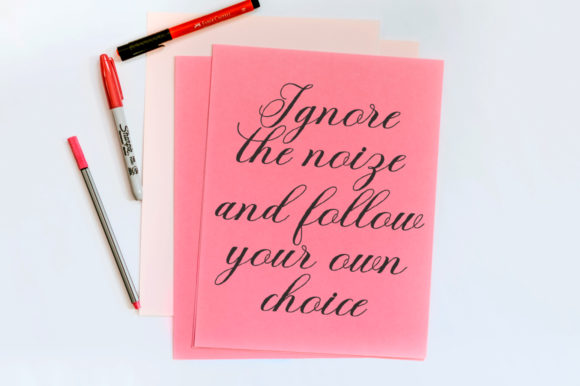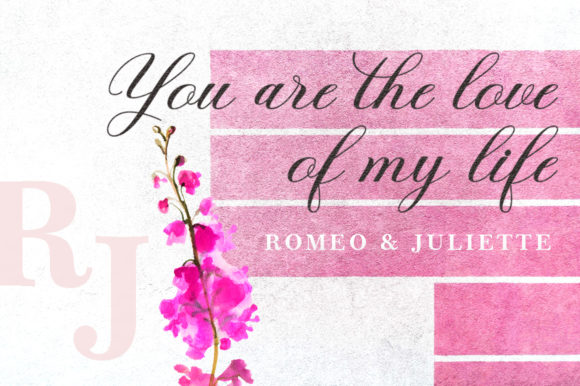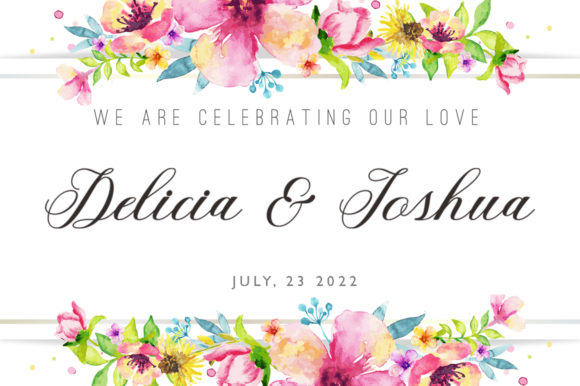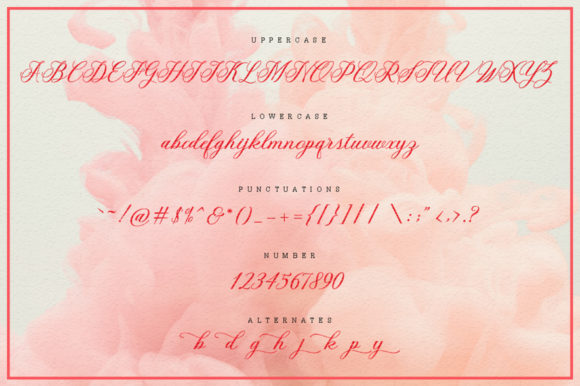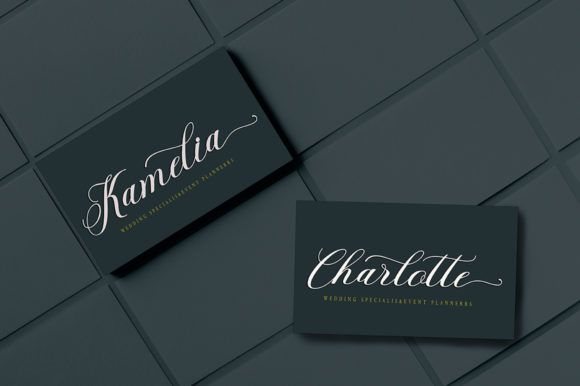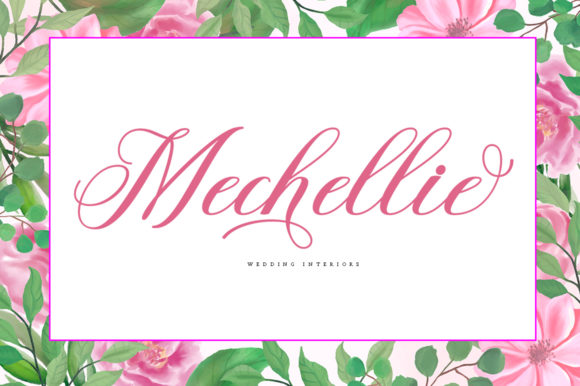
Introduction to Milania Font
Have you ever sat at your desk, staring blankly at a blank sheet of paper, waiting for the perfect idea to strike? As a designer, this moment is all too familiar, but it’s exactly this kind of creative block that can be broken with the right design resource. Enter the stunning Milania Font, a romantic, soft hand-lettered script that’s sure to bring your next project to life.
With its playful rounded characters and gorgeous ligatures, the Milania Font is the perfect addition to any designer’s toolkit. Whether you’re working on a high-quality wedding invitation, creating beautiful stationary art, or designing eye-catching social media posts, this font is sure to add a touch of elegance and sophistication. And with its transparent background, you can easily customize your designs to fit your unique vision.
Honest Review: Milania Font
I recently came across the Milania Font, a free design resource that caught my attention. In this review, I’ll share my honest thoughts on what works well and what could be improved.
- High-quality design: The Milania Font boasts a clean and modern design that’s perfect for creative projects.
- Transparent background: This feature makes it easy to use the font on any background, adding to its versatility.
- Limited character set: The font’s character set is relatively limited, which may not be ideal for designers who need a wide range of characters.
- No variations: Unlike some other fonts, Milania Font doesn’t offer any variations or styles, which may limit its use in certain projects.
Overall, I’m impressed with the Milania Font’s high-quality design and transparent background. While it may have some limitations, it’s a great resource for designers working on a budget or looking for a clean, modern font. If you’re considering using it for your next creative project, I’d definitely recommend giving it a try.
Milania Font
Milania Font is a high-quality design resource perfect for any creative project. This free download offers a unique and elegant style that can elevate your designs to the next level.
Tips for Getting the Most Out of Milania Font
To get the most out of Milania Font, try experimenting with different font sizes, colors, and effects. You can also combine it with other design elements to create unique and interesting designs.
Milania Font is perfect for a variety of creative projects, including logos, business cards, invitations, and social media graphics. Its elegant style makes it ideal for weddings, baby showers, and other special occasions.